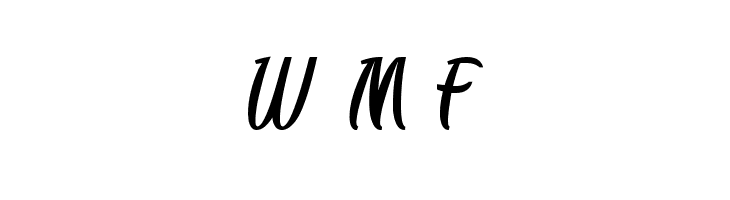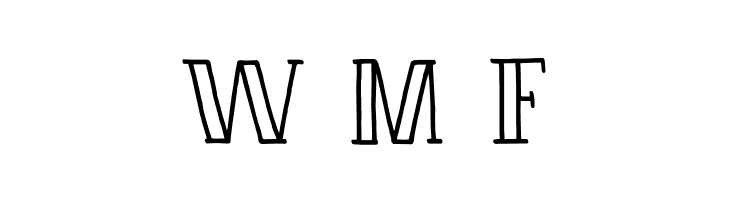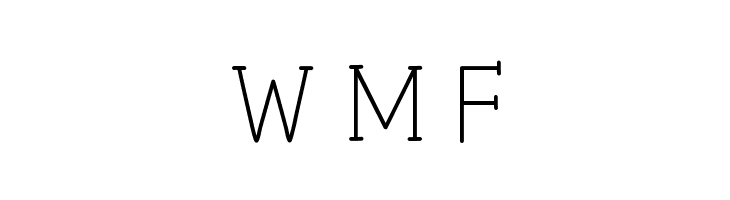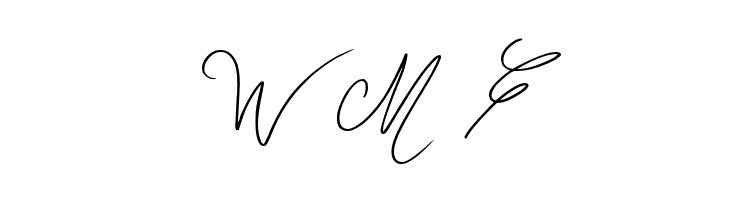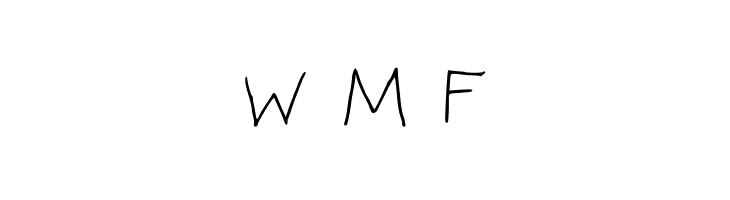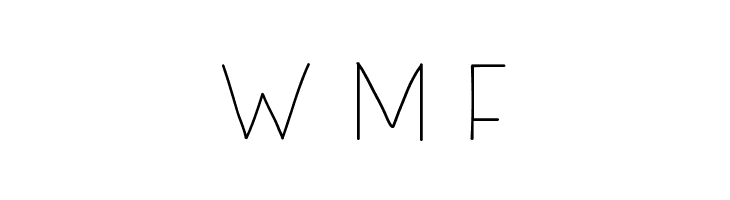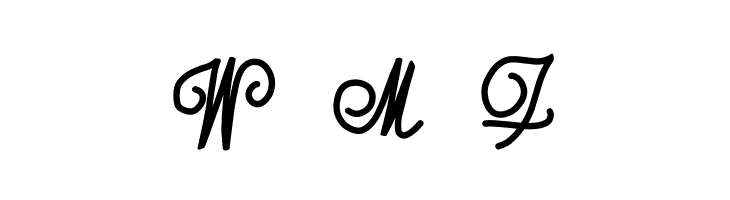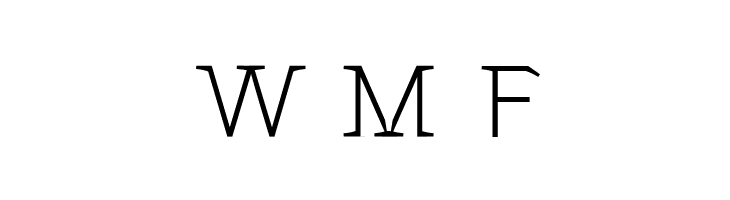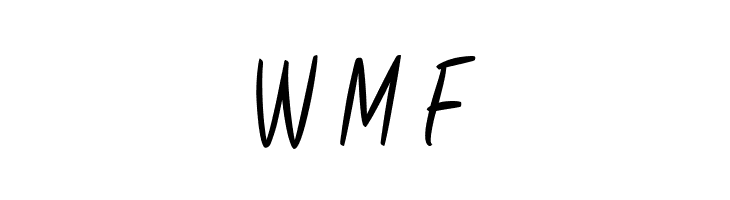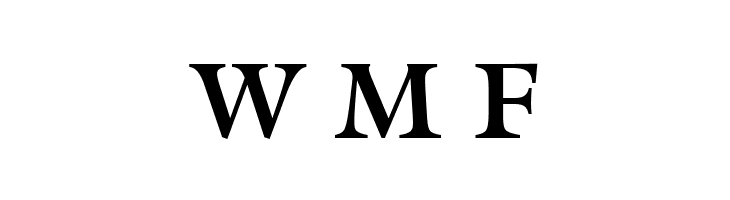
An elegant italic serif font with smooth, flowing lines and a refined appearance.
A classic serif font with elegant proportions and refined strokes.
An elegant script font with flowing, cursive strokes and decorative flourishes.
An artistic and flowing font with elongated, dynamic letterforms.
A bold serif font with strong vertical strokes and classic elegance.
An elegant script font with flowing, cursive style and sophisticated flourishes.
A whimsical and decorative font with vintage-modern elements and playful serifs.
A playful serif font with script-like elements, offering elegance and approachability.
A playful handwritten font with smooth curves and a casual style.
A playful and whimsical script font with flowing, connected letters.
A modern, geometric font with thin lines and a minimalist design.
A modern, geometric font with sharp angles and smooth curves.
A lively, dynamic handwritten font with smooth, continuous strokes.